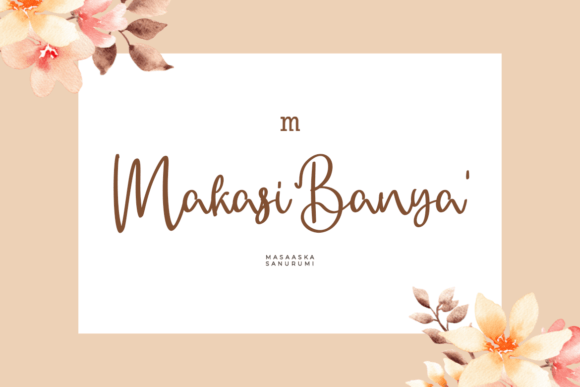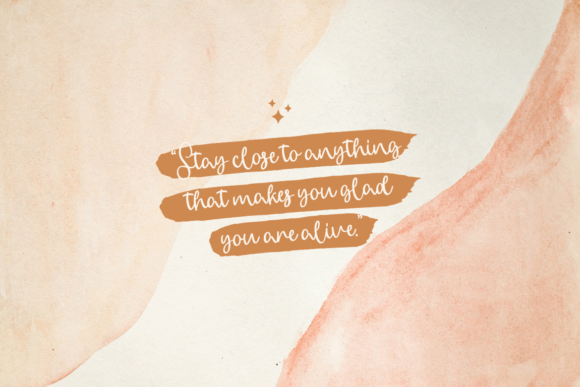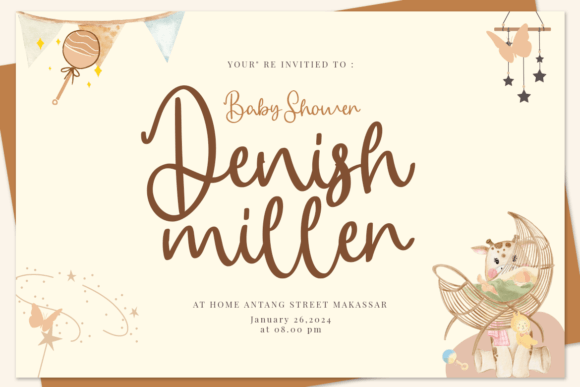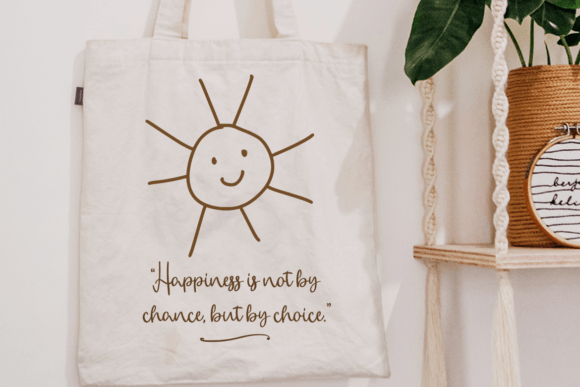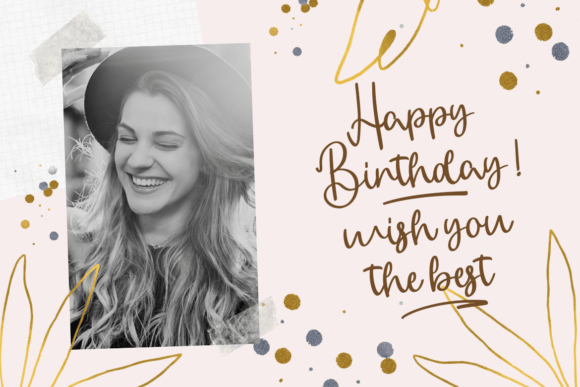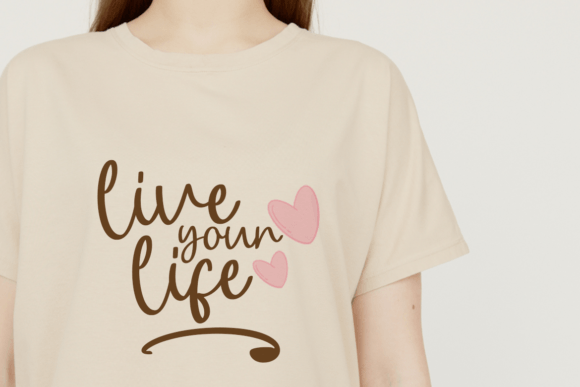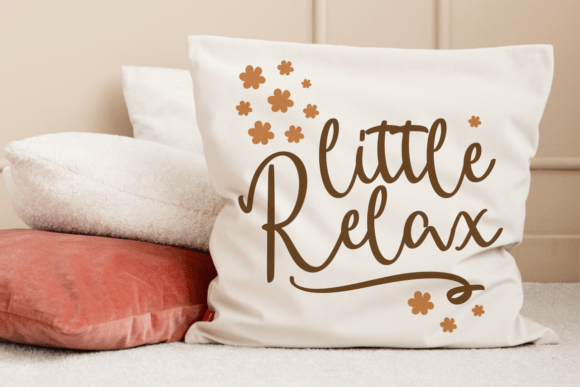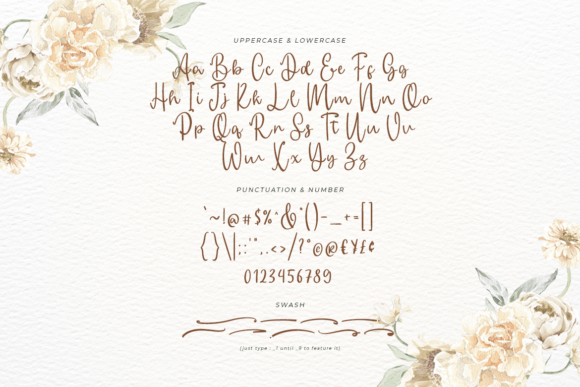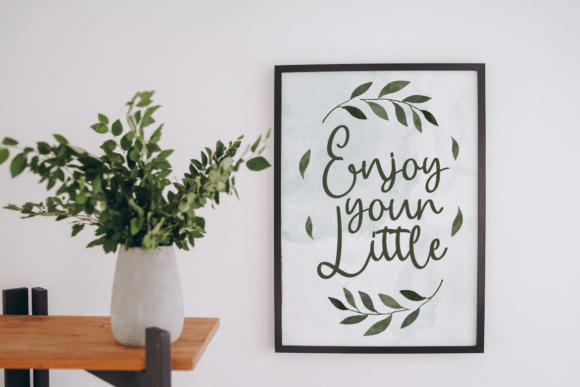
Giory Script Font
Add Modern Elegance with Giory Script Font
Giory Script Font is a beautiful and modern script typeface defined by its simplicity and stylish appearance. This font is ideal for adding a refined touch to your creative projects. Whether you need fonts for Instagram posts, calligraphy-based DIY projects, or elegant branding materials, Giory ScriptFont helps transform your ideas into true works of art.
Its smooth curves and balanced letterforms create a sophisticated flow, making your designs stand out with graceful charm.
Versatile Uses for Giory Script Font
Giory ScriptFont suits a wide variety of creative projects, such as:
• Instagram graphics and social media posts
• Calligraphy and handwritten DIY projects
• Wedding invitations and event stationery
• Branding and logo design
• Posters, flyers, and promotional materials
Thanks to its beautiful and modern script style, Giory ScriptFont adds elegance and sophistication to all your creative ideas.
It features optimized kerning and clear spacing to ensure readability and visual appeal across various sizes and platforms.
Why Designers Choose Giory Script Font
Designers and creatives love Giory ScriptFont for its combination of modern style and classic calligraphy elegance. It adds a personal and professional flair that enhances any project. Whether you are a professional or a hobbyist, Giory ScriptFont helps you create beautiful and memorable typography.
Use Giory ScriptFont to bring modern elegance and artistic style to your next creative design.